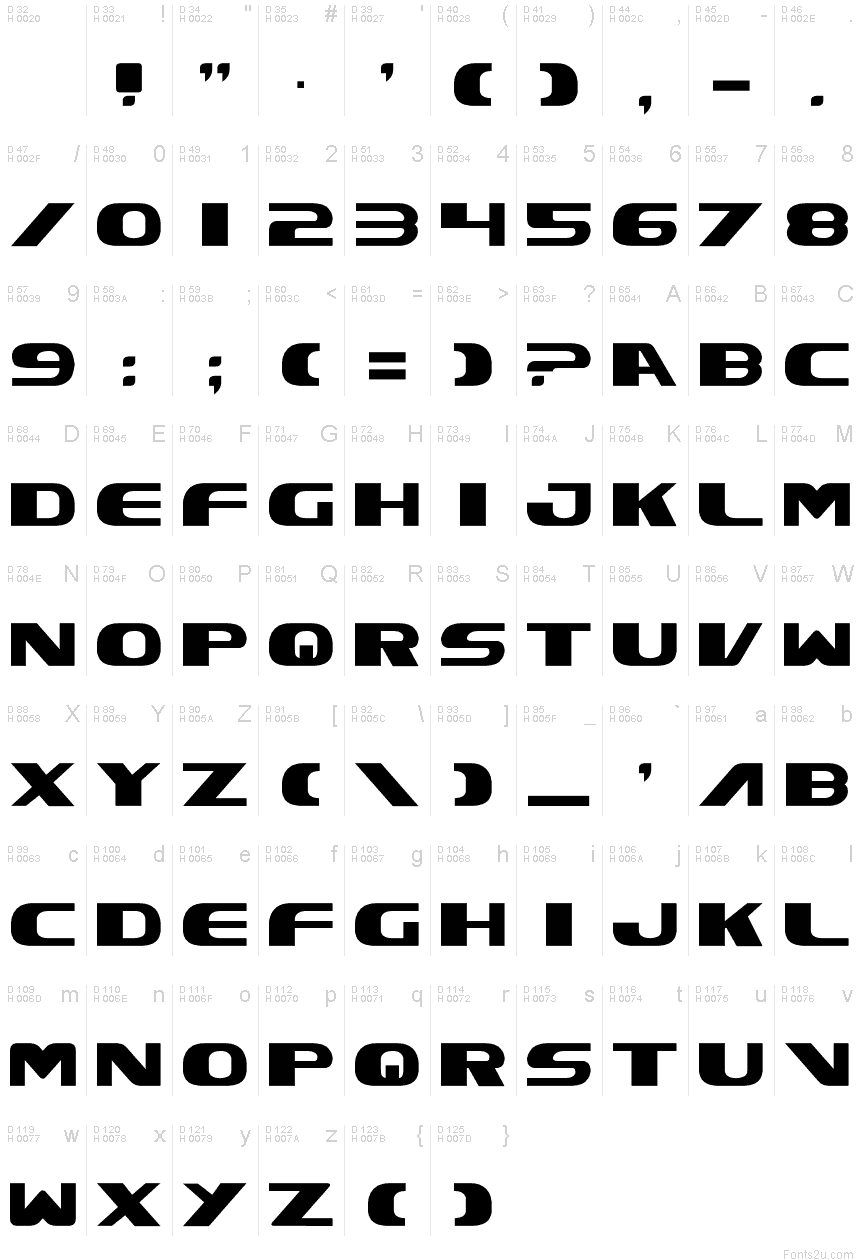
Excelsior by Iconian Fonts is a free futuristic display font built from broad, low-slung letterforms. Rounded horizontal strokes meet sharp diagonal cuts. The shapes look fast and engineered.
Digital graphics benefit from its solid silhouettes and unmistakable science-fiction styling, especially in sleek interface panels and title screens. It suits game interfaces, technology packaging, and event posters built around racing, robotics, or space themes. For entertainment or electronics branding, the clipped geometry can become a recognizable product mark rather than ordinary lettering.